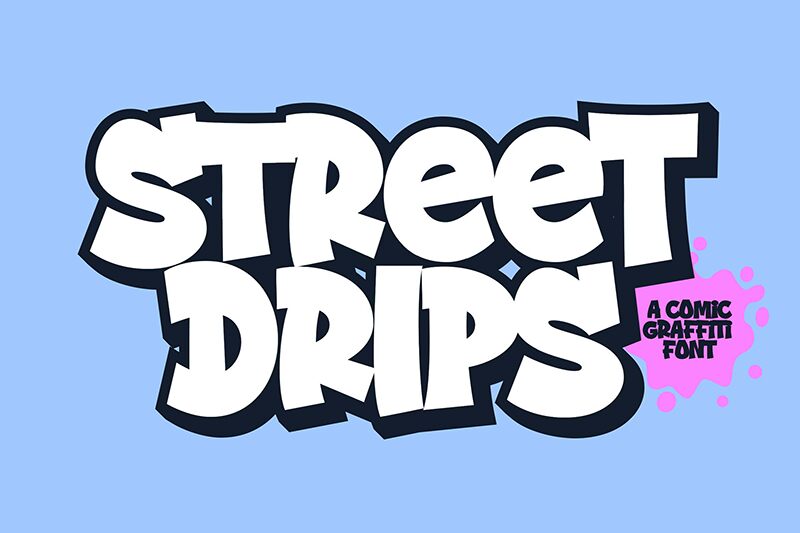
Street Drips font family by Blankids is a free cartoon font family with 2 font styles. The colorful retro typeface has been crafted by professionals for advertising and magazine headings. Unique and very stylish, it combines multiple styles and head-turning contours to give you a truly versatile type character.